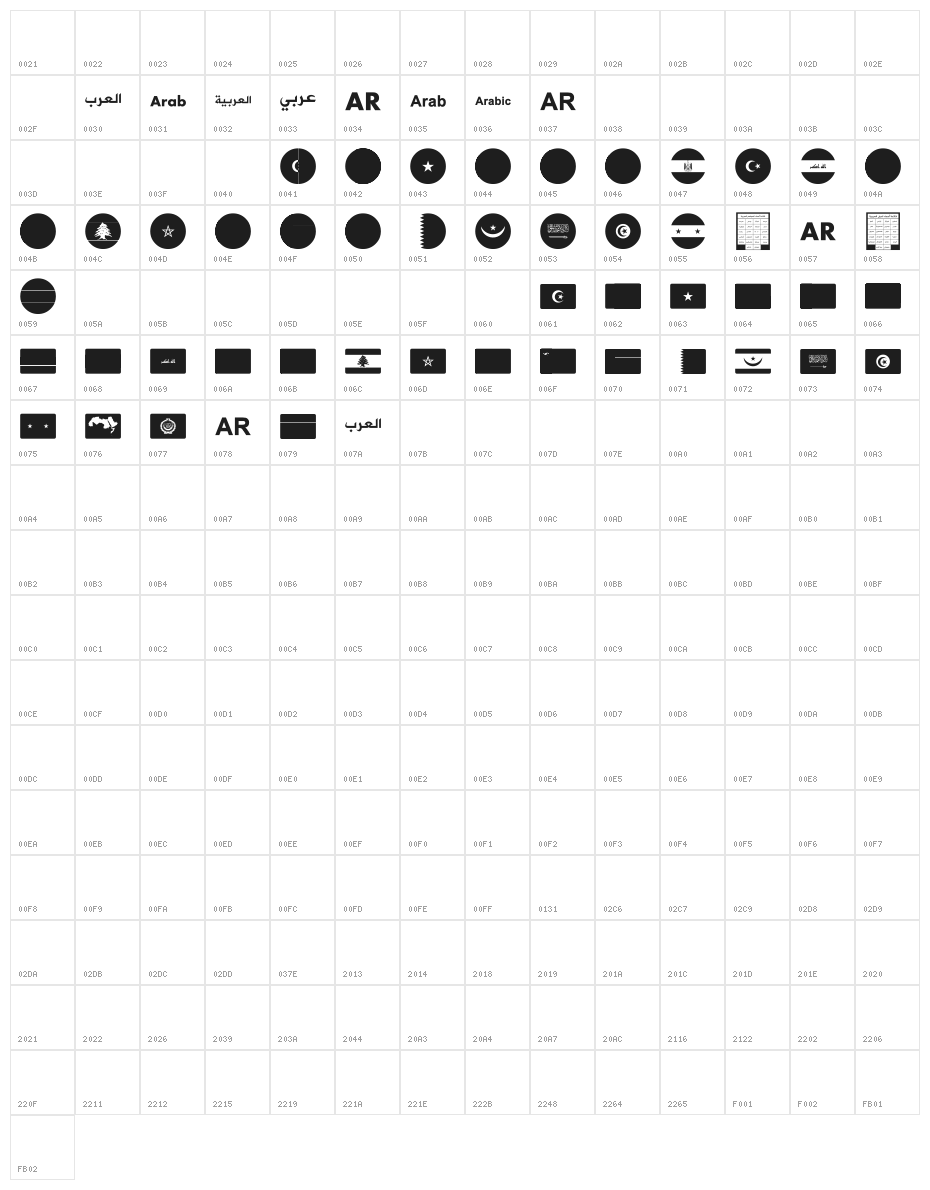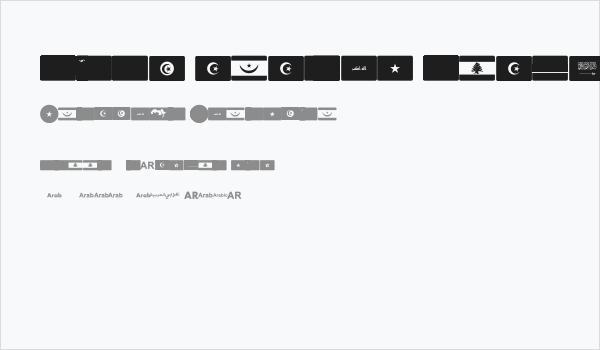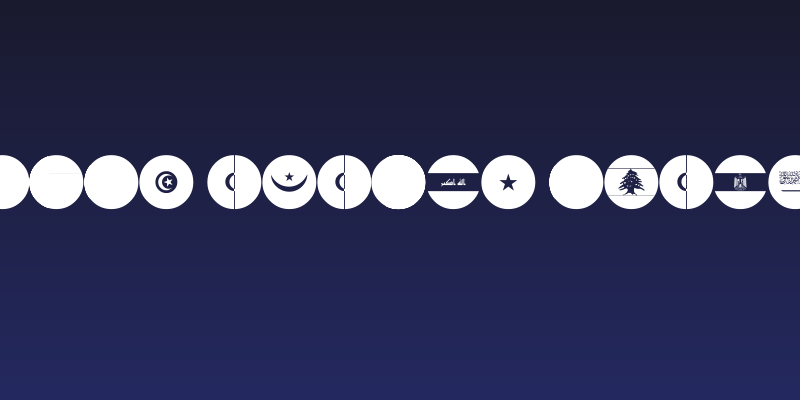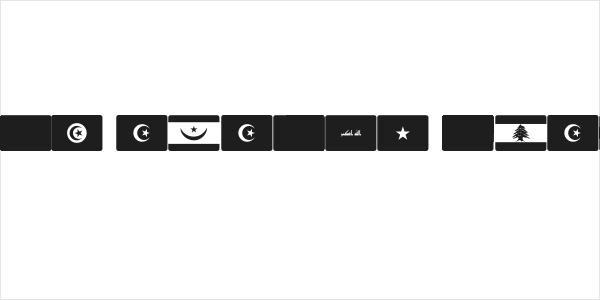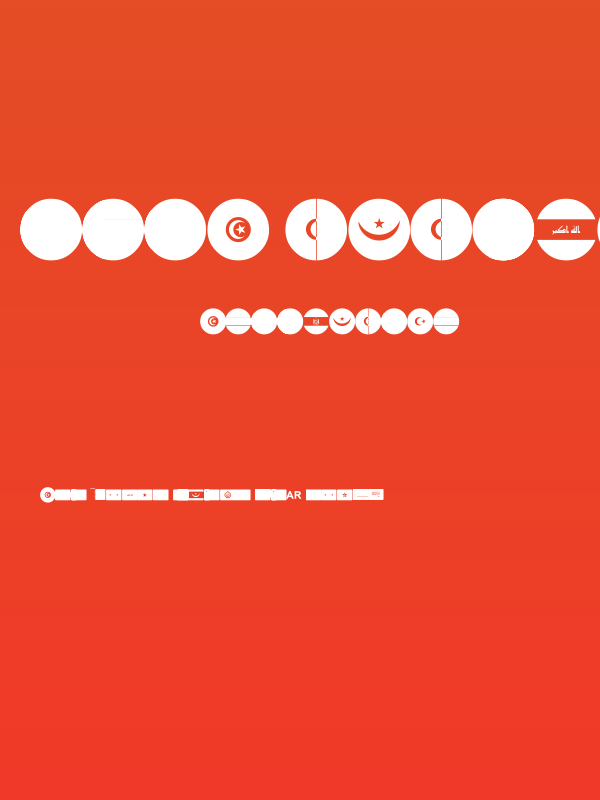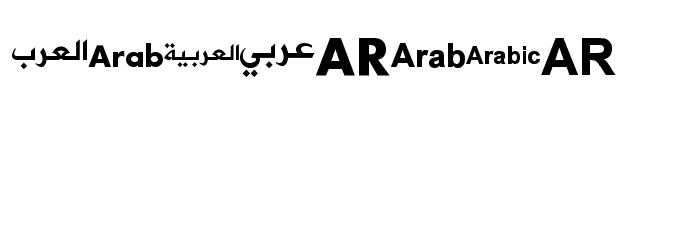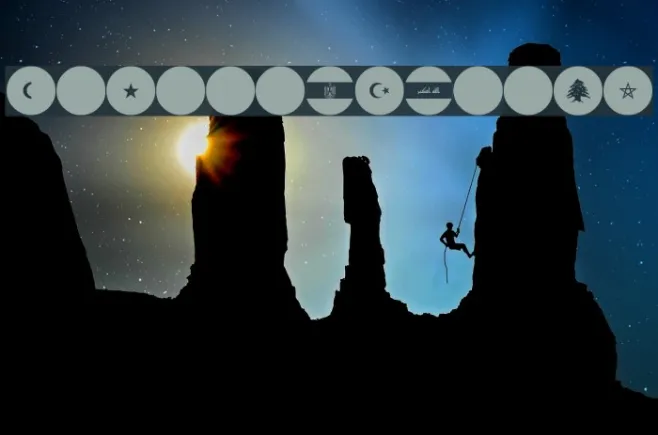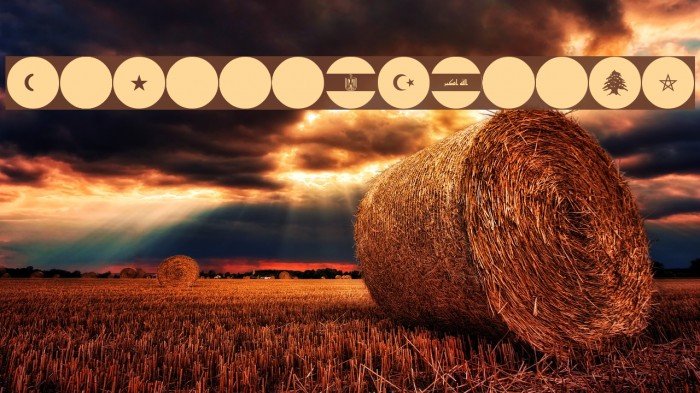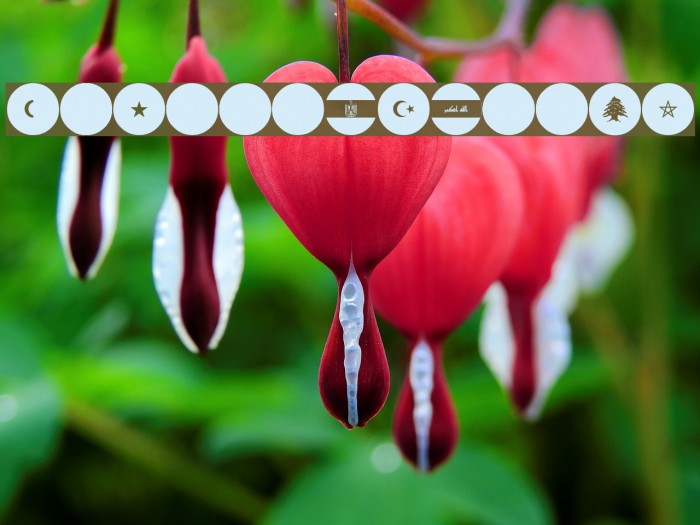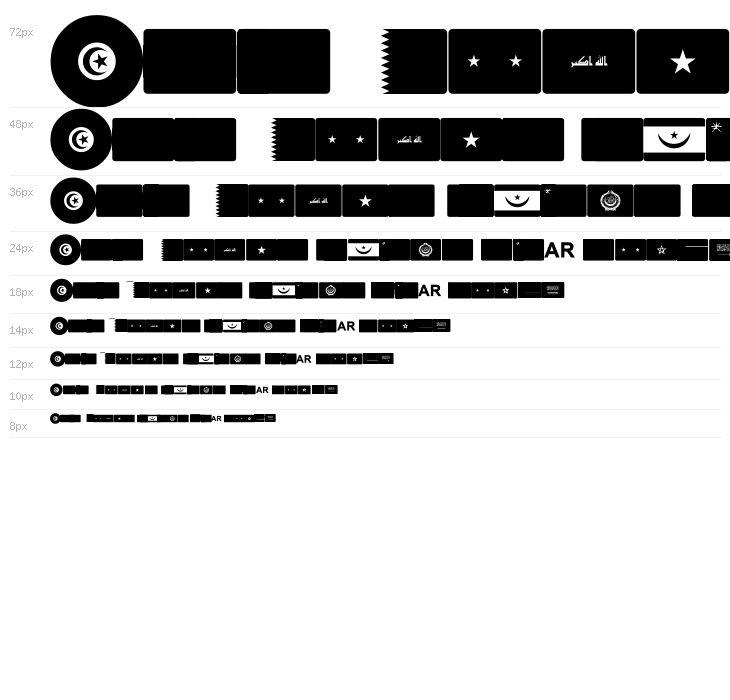
font arabic flags Font
font arabic flags Description
This is a decorative font featuring a collection of Arabic flags and symbols. Each character is represented by a unique flag or emblem, capturing the essence of various Arabic-speaking countries. The font includes a mix of circular and rectangular shapes, with some characters displaying intricate details like stars, crescents, and text in Arabic script. The design is bold and visually striking, making it suitable for projects that require a cultural or thematic emphasis. The font's style is both modern and traditional, reflecting the rich heritage and diversity of the Arabic world.
| Use Case | Logos, Posters, Cultural Events |
| Proposed Projects | Ideal for cultural events, educational materials, themed posters, and international projects focusing on the Arabic world. |